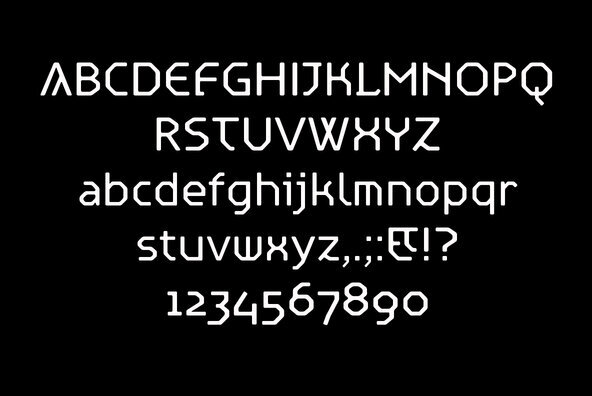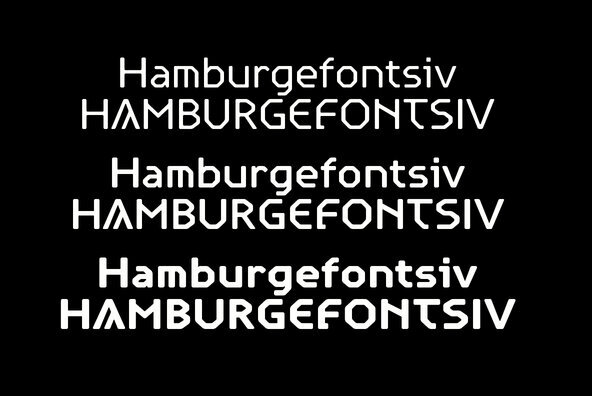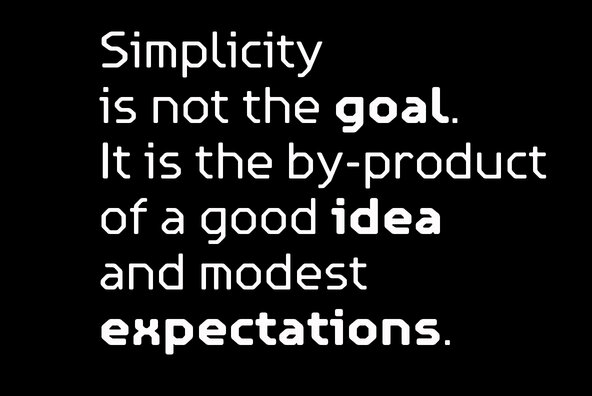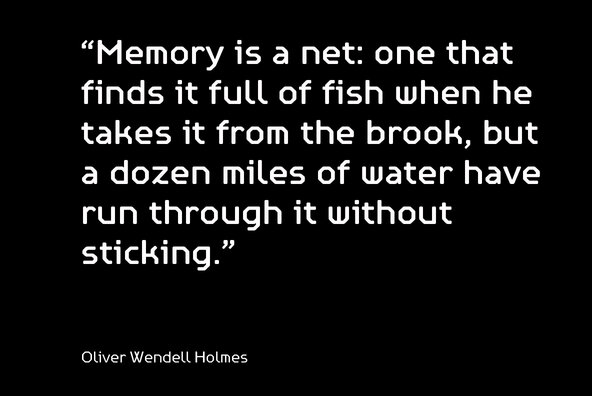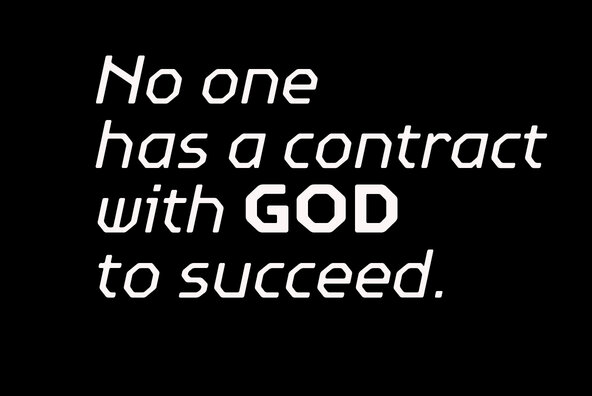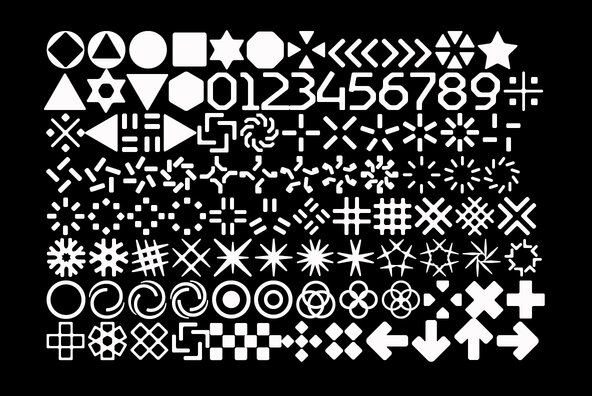
Alert fonts are primarily intended for heading, display and decorative use. Alert is angular by its structure but soft-outlined typeface with modern industrial strength expression. Alert family consist of seven styles - Regular, Medium, Bold (all with slanted counterparts) and Dingbats.